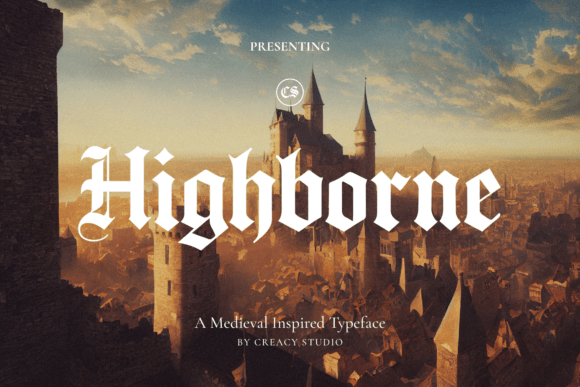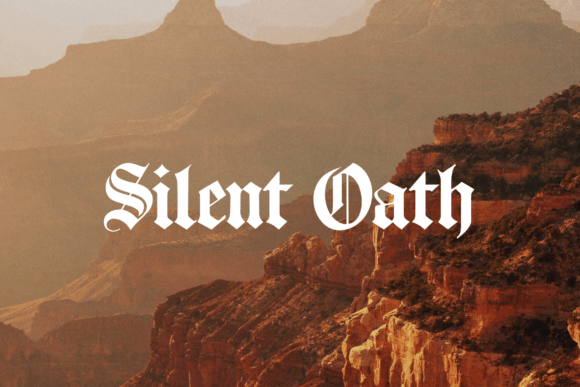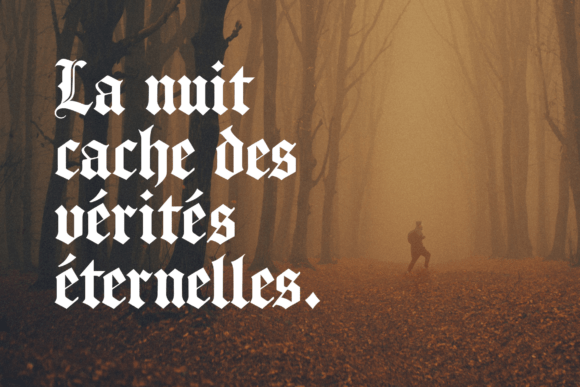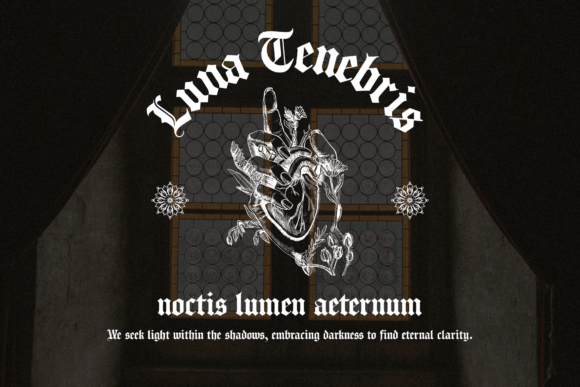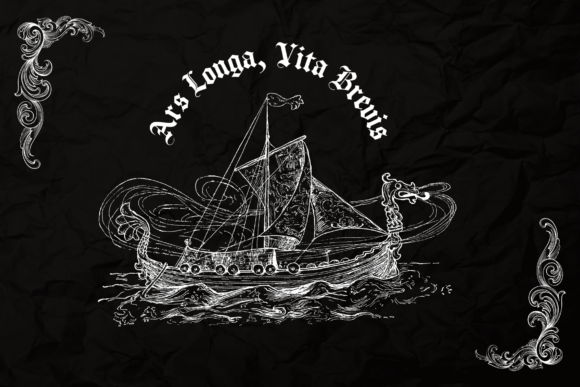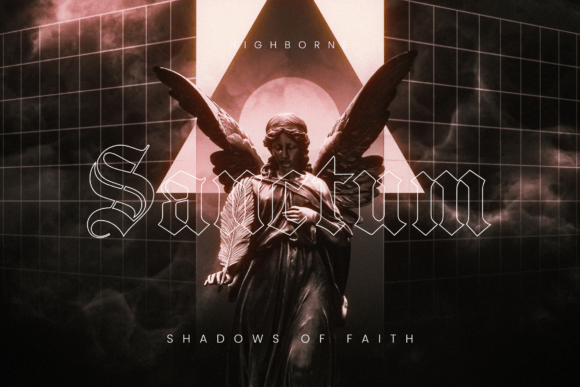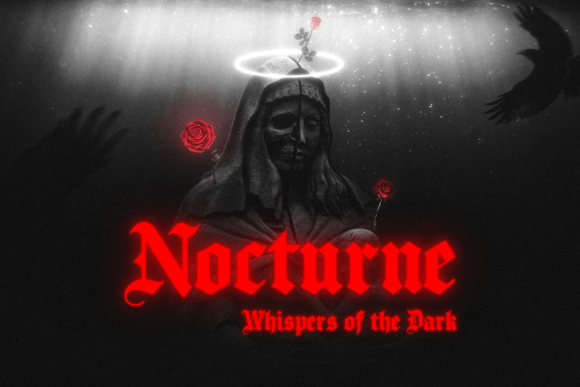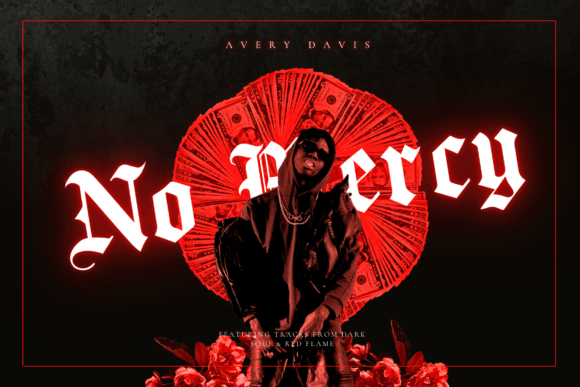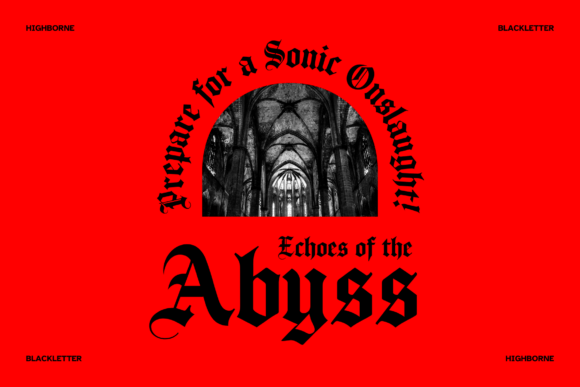
Highborne Font
Immerse yourself in a realm of majestic legends, ageless castles, and enduring promises with Highborne, a blackletter-style typeface that breathes a sense of mighty character and historic enchantment into your work.
Enriched with striking ornate contours, dramatic contrast, and bona fide gothic facets, Highborne encapsulates the quintessence of ancient manuscripts and heraldic insignia, whilst maintaining its adaptability for present-day artistic pursuits. Ideal for the design of intriguing music album covers, mystical dark fantasy posters, gothic brand expression, impactful book titles, distinctive apparel graphics, or awe-inspiring cinematic quotes, Highborne enhances your work with an indelible aura of enigma and authority that immediately seizes the viewer’s attention.
Highborne is brilliantly suited for a range of applications such as music and album covers, encapsulating genres like metal, hip-hop, and gothic, inventively dark posters, flyers, and branding for events, dark fantasy and medieval themed projects, book covers, titles and quotations, trendy apparel and merchandise packaging, as well as robust logo and brand identity creation for innovative brands.
Inject a hint of timeless might and gothic sophistication into your creative toolkit with Highborne – a typeface bridging the dark corners of history with today’s audacious visual statements. Meticulously woven together with immense passion by Creacy Studio.